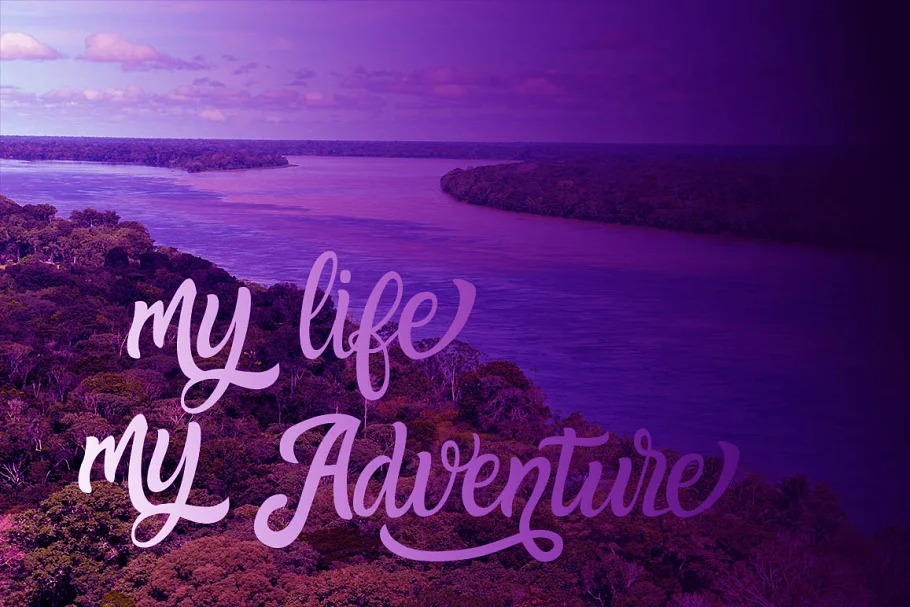
Amazone Font
Amazone Script Font
This is a modern brush script font created by Putra Khan with smooth handwritten flows, designed to combine perfectly and allow you to create stunning hand-lettering quickly and easily. Ideal for logos, handwritten quotes, product packaging, header, poster, merchandise, social media & greeting cards.
Amazone Script comes with upper and lowercase characters, large set of punctuation glyphs, numerals, and supports international languages.